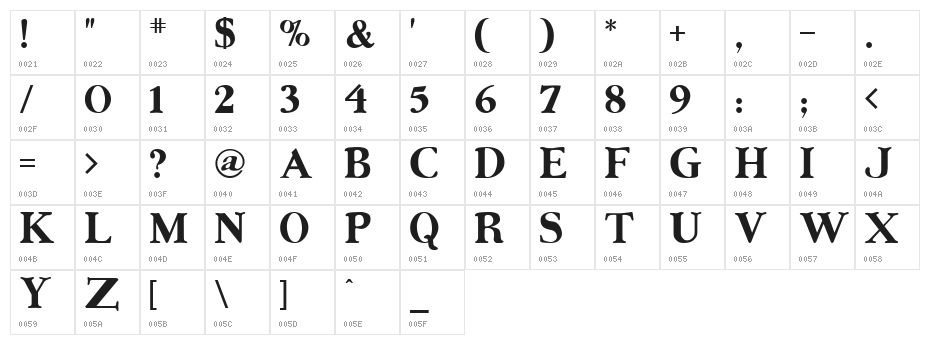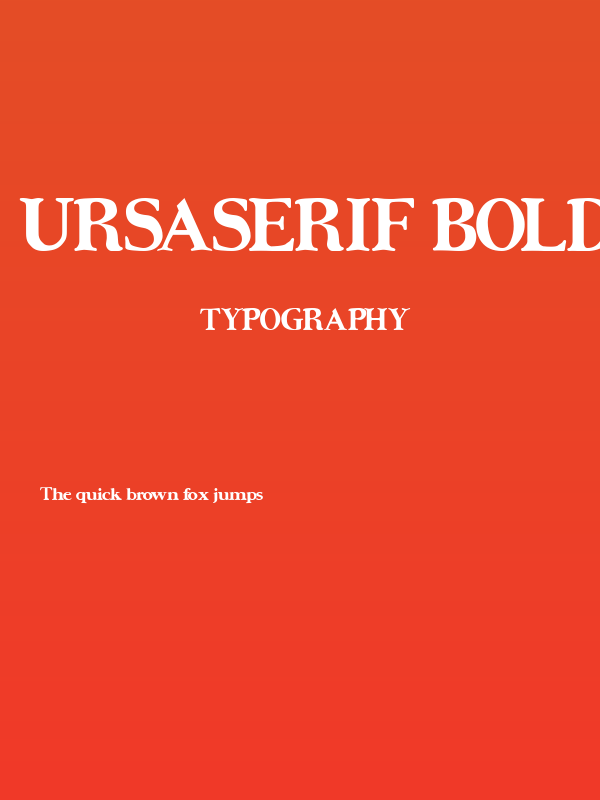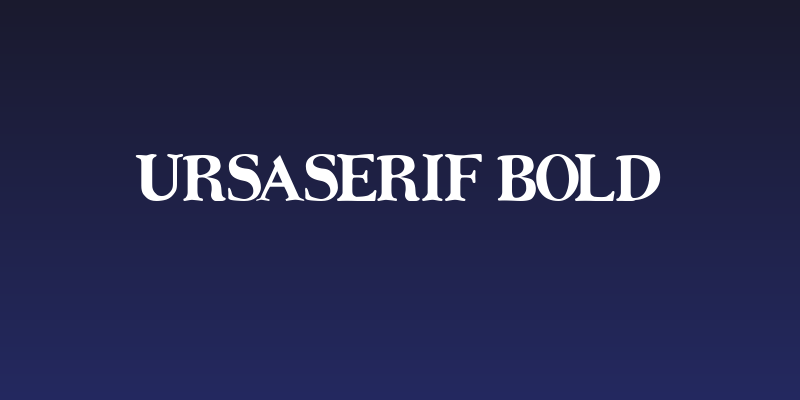
UrsaSerif Bold Font
UrsaSerif Bold Description
This font features a bold and commanding presence with its strong, thick strokes and classic serif design. The uppercase letters are robust and authoritative, while the lowercase letters maintain a balanced and harmonious flow. The numerals are distinct and easily readable, making them suitable for various applications. Special characters are crafted with precision, adding to the font's versatility. The overall style is traditional yet modern, making it suitable for both formal and contemporary projects.
| Proposed Projects | Ideal for book covers, editorial headlines, branding, and logo design. |